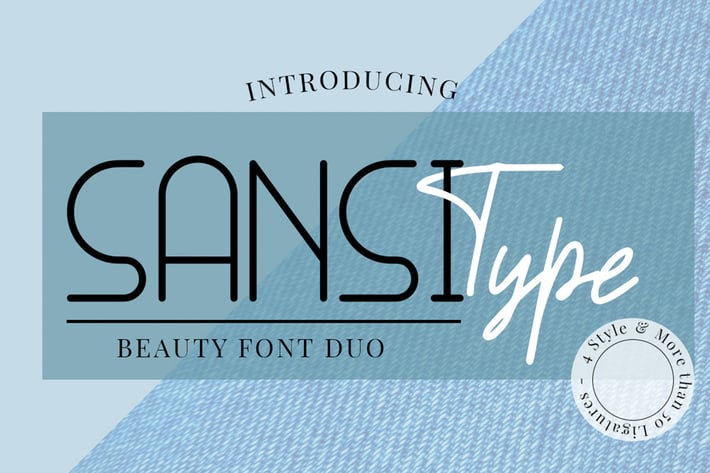
Sansi Type - Font Duo
Sansi Type font duo is simple beautiful font with classy taste, come with script and four style sans serif font variations, opentype feature such as ligatures.
More than 50 Ligature